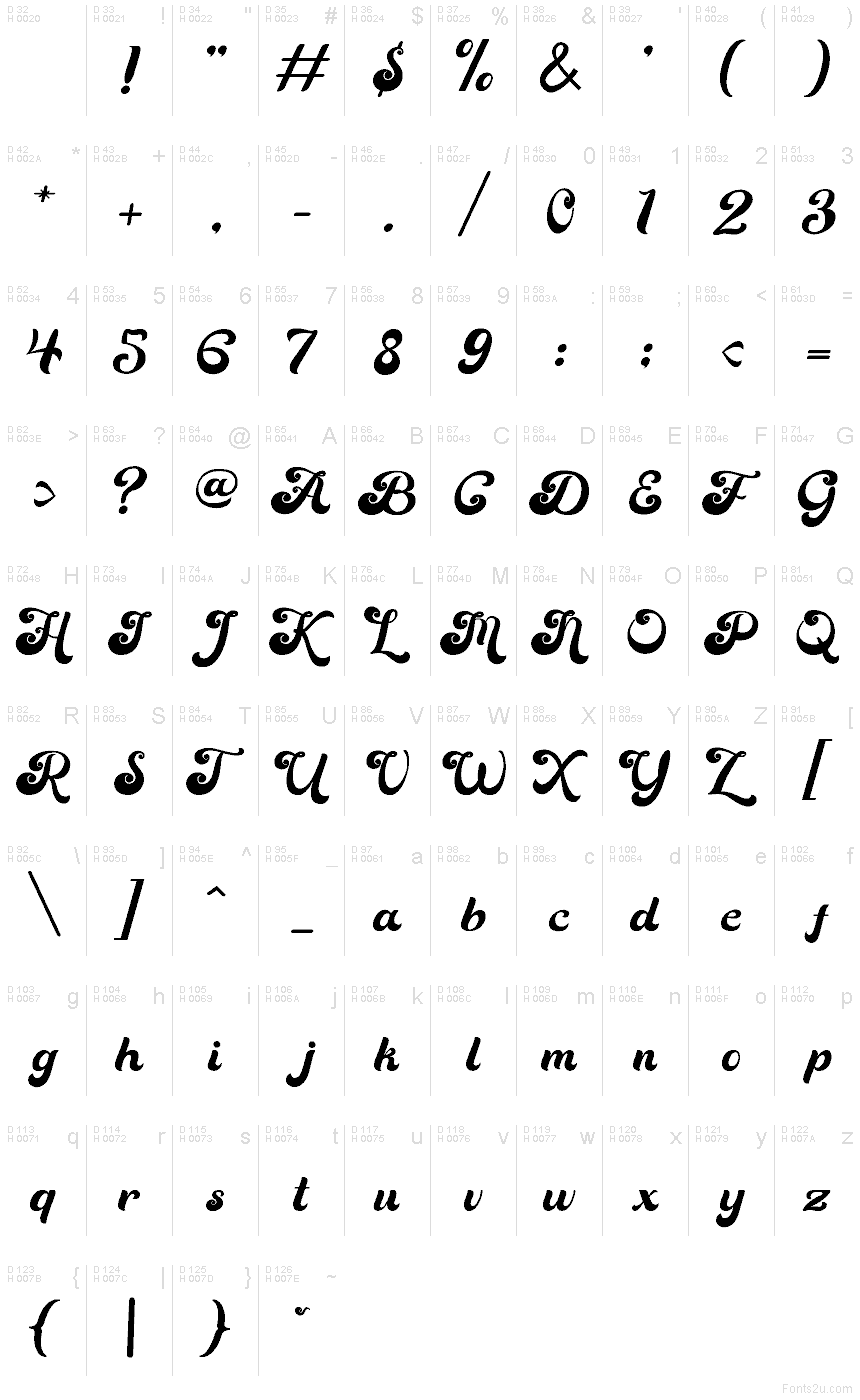
Old Rocket
Old Rocket font by PutraCetol Studio is a free brush font that combines curling strokes and decorative elements for a nostalgic effect. This expressive typeface is whimsical and slightly retro-inspired with an uncanny ability to grab attention. Each character appears to be dashed with paint, an authentic texture that gives the font a vintage feel.
Authenticity is invaluable in packaging designs, websites, headers, book covers, editorials, brochures, magazines posters, banners and advertisements. Instant hand-lettered typography can also freshen up social media posts for Instagram or Facebook.